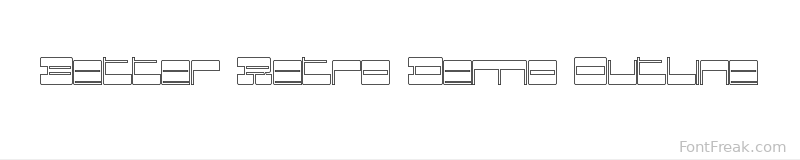
Better Retro Demo Outline
About Better Retro Demo Outline
The Better Retro Demo Outline font by Noah Type is a striking display font that captures the essence of retro aesthetics while maintaining a modern flair. This decorative typeface features a unique outline style that adds depth and personality to any design project. The font's stroke weight is moderately bold, creating a strong visual presence that stands out in various applications. Its open spacing enhances readability while maintaining a playful charm, making it ideal for eye-catching designs. The italics provide an added layer of dynamism, perfect for titles or headers that demand attention.
Best suited for creative projects, the Better Retro Demo Outline font excels in areas such as vintage-style wedding invitations, where its nostalgic vibe can evoke timeless elegance. It also makes a fantastic choice for movie posters, particularly for films that embrace retro themes or aesthetics. Restaurant menus can benefit from this font's boldness, making dish names pop and enticing customers. Additionally, it is a great fit for promotional materials aimed at small businesses, allowing them to convey a friendly yet professional image.
What sets the Better Retro Demo Outline font apart is its perfect blend of nostalgia and contemporary design. It invites users to explore their creativity while providing a distinctive touch to any project. This font is more than just letters; it’s a celebration of style and individuality that can elevate your designs to new heights.